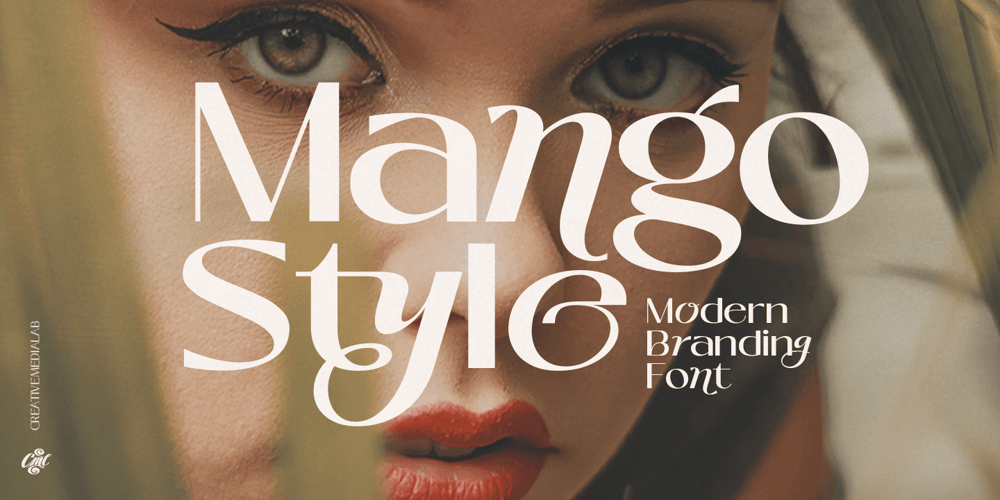
Mango Style Font Family was designed by Kadek Mahardika and published by Creativemedialab. Mango Style contains 10 styles and family package options. Mango Style is a modern branding font with a stylish script alternates. This font is ideal for crafting logos for fashion, apparel brand, luxury projects.Tips: Insert stylish alternates between words for more fashionable look